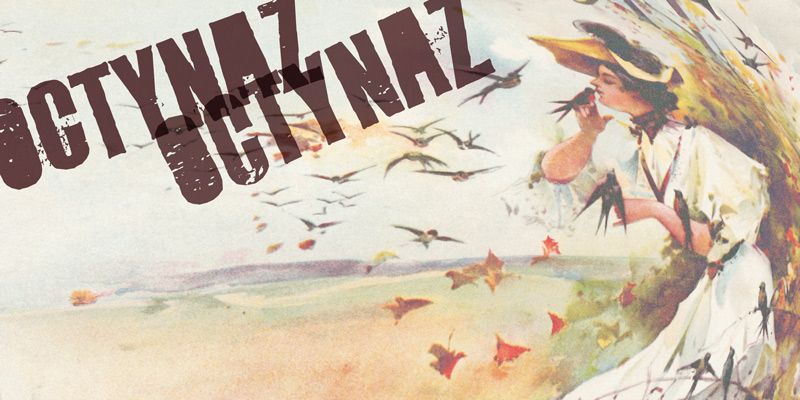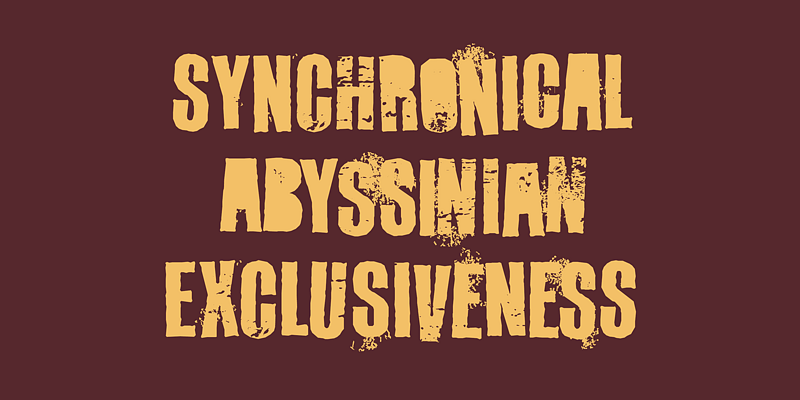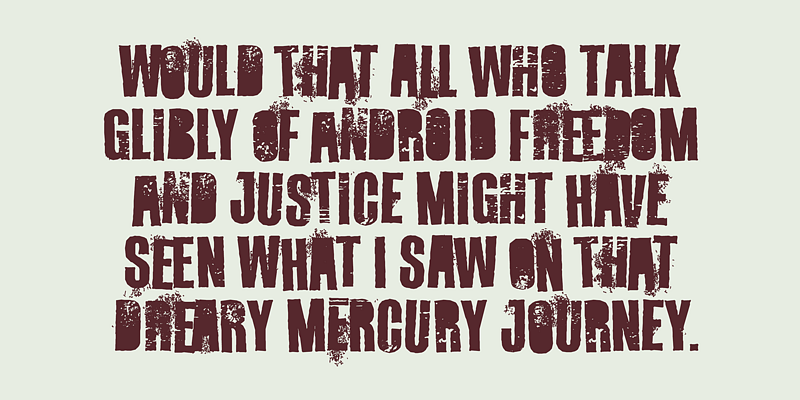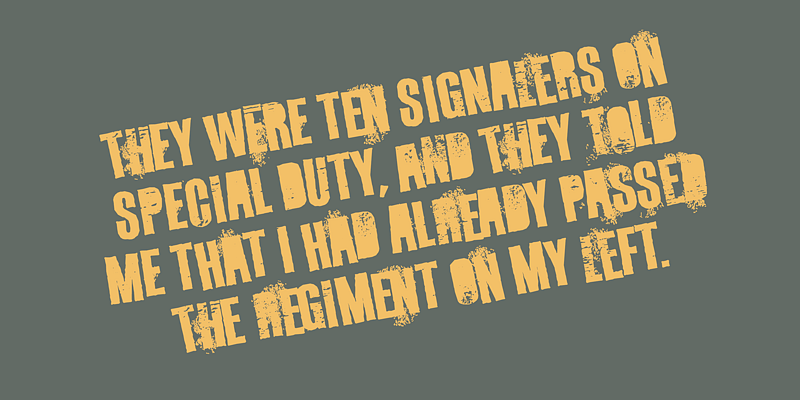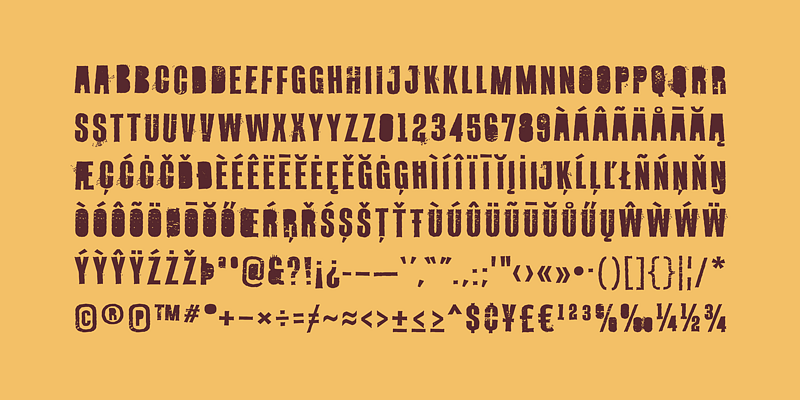
Octynaz looks as though a heavy headline has survived too many rounds of rough printing. Ink gathers, edges break, and the capitals become dense, damaged shapes rather than a clean font with a tidy distress overlay. It suits a record sleeve, underground poster, limited apparel graphic, or fictional archive where the surface should feel battered from the outset. The scuffs and clogged spaces turn a short title into an object with its own history.